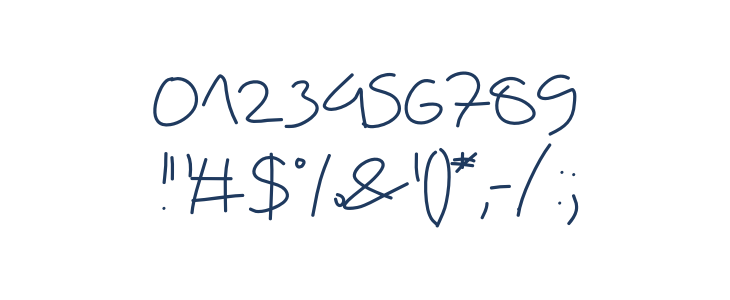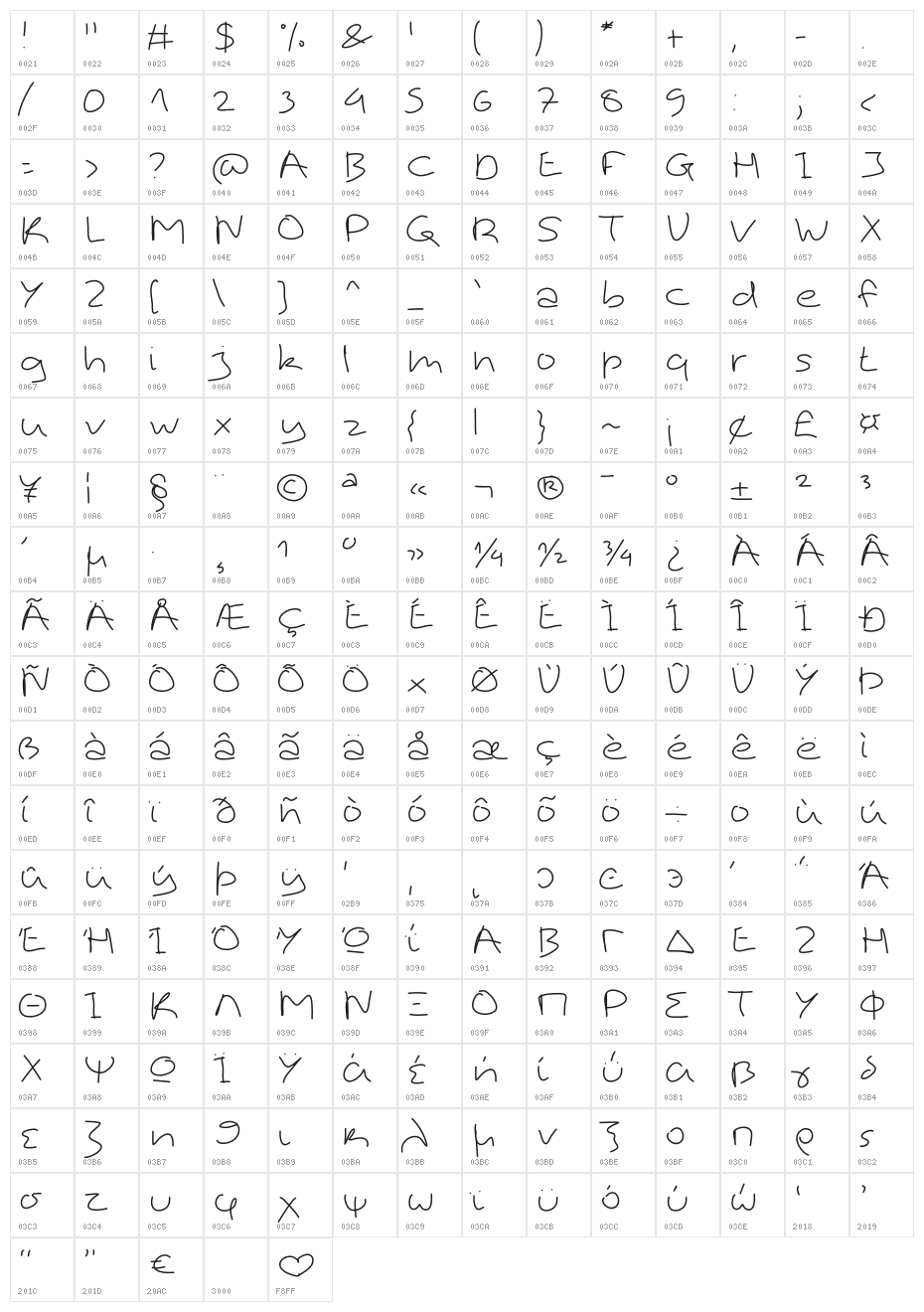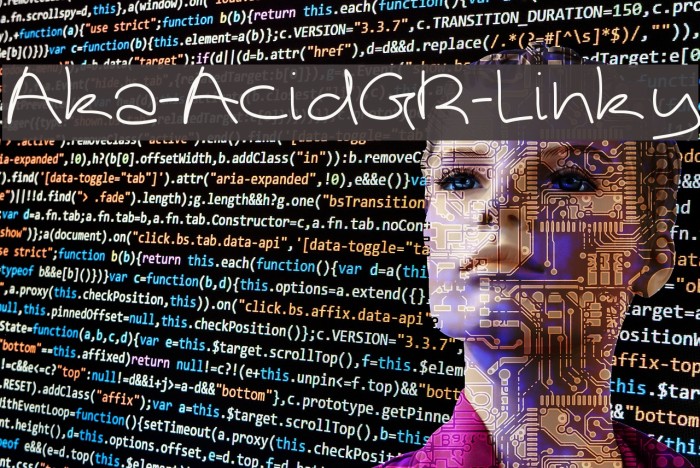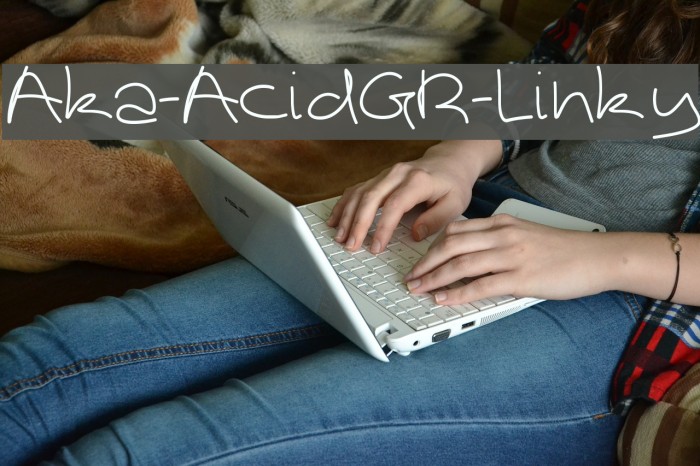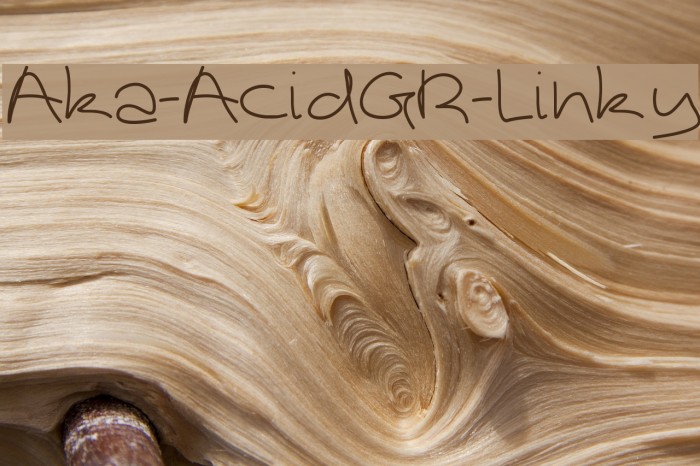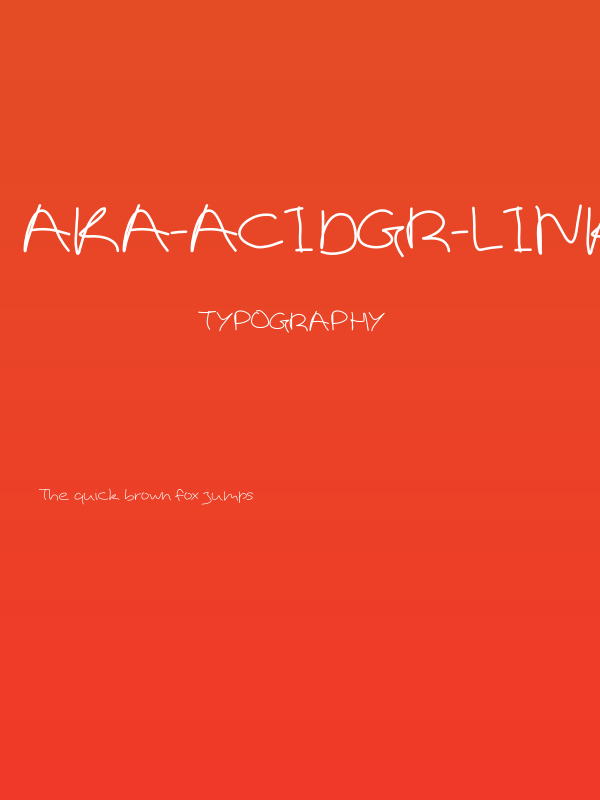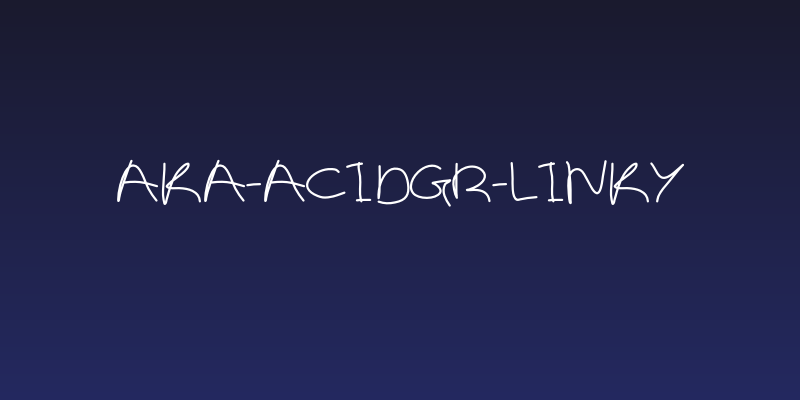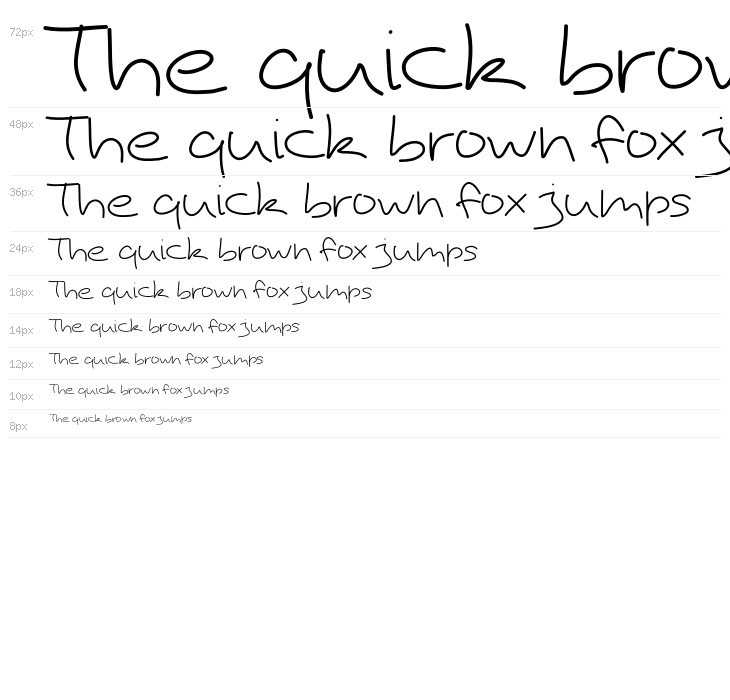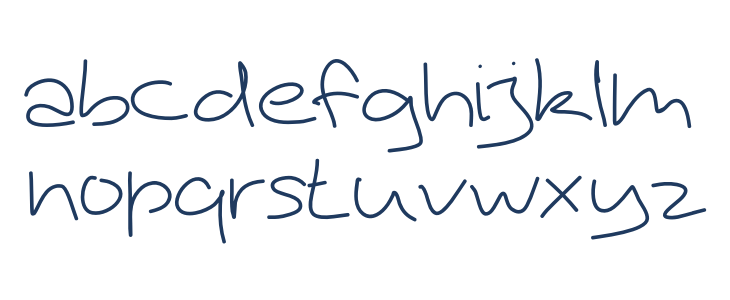
Aka-AcidGR-Linky Font
Aka-AcidGR-Linky Description
This font features a playful and informal handwritten style, characterized by its smooth, flowing lines and slightly irregular shapes. The letters have a casual, friendly appearance, with rounded edges and a consistent stroke width that gives it a uniform look. The uppercase and lowercase letters maintain a cohesive style, while the numerals and special characters blend seamlessly with the overall design. This font's relaxed and approachable aesthetic makes it ideal for projects that require a personal touch.
| Use Case | Headlines, Informal text, Personal projects |
| Proposed Projects | Ideal for greeting cards, children's books, casual invitations, and personal branding. |